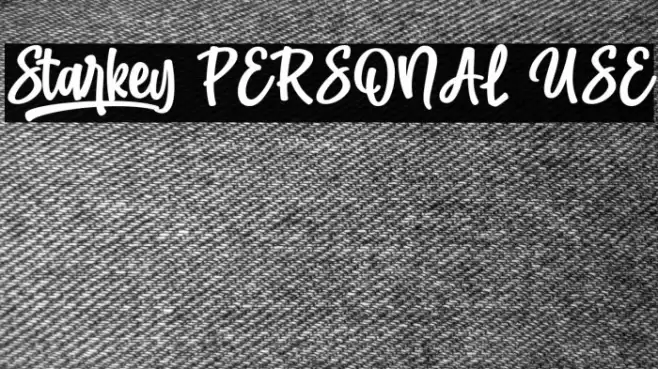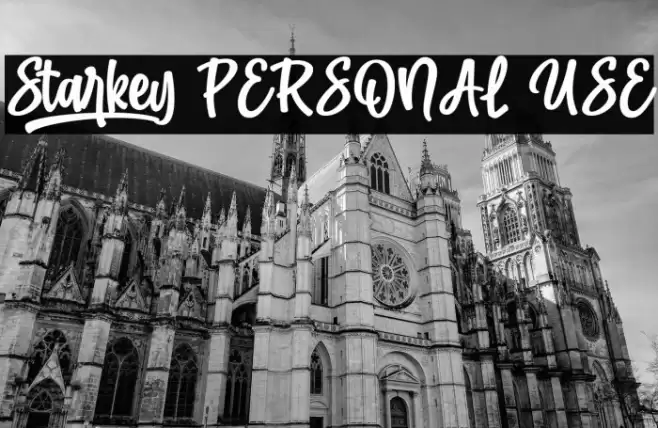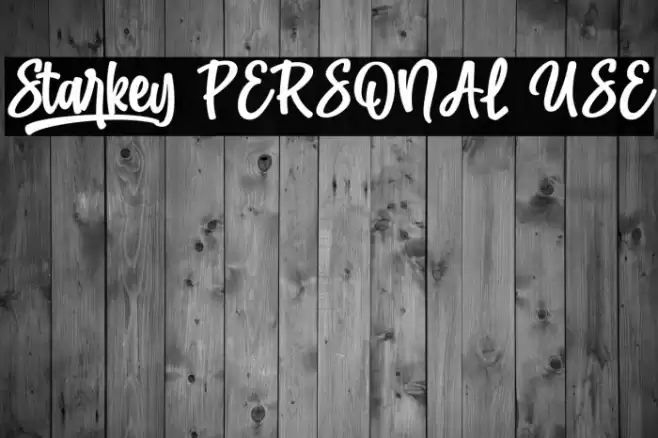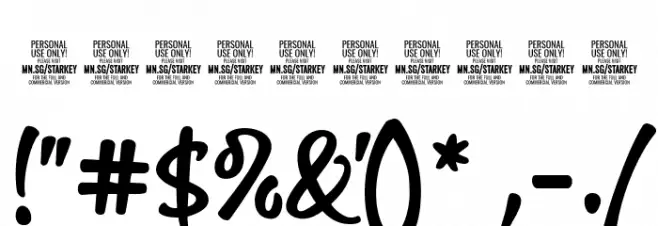
Starkey PERSONAL USE Font
Starkey PERSONAL USE Description
This font features a bold and expressive handwritten style, characterized by its fluid and dynamic strokes. The letters are interconnected, giving a sense of continuity and flow, reminiscent of casual script writing. The uppercase and lowercase letters maintain a consistent style, with a playful yet elegant appearance. The numerals and special characters are crafted to match the overall aesthetic, ensuring a cohesive look across all text. This font is ideal for projects that require a personal touch, such as invitations, greeting cards, or branding materials that aim to convey warmth and approachability.
A bold, expressive handwritten font with fluid, interconnected strokes from Regular fonts.
- Proposed Projects: Ideal for invitations, greeting cards, branding materials, and any project requiring a personal touch.
- Use Case: Logos, Headlines, Invitations